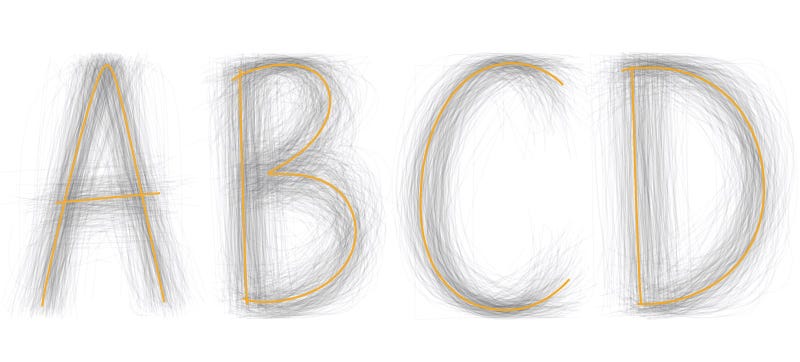
In yet another crushing blow to Comic Sans, pen-maker Bic is currently soliciting handwriting samples from anyone on Earth who wants to participate in its Universal Typeface Experiment. The goal is to create a universal font that will presumably supplant Comic Sans as the go-to typeface for amateur designers making birthday cards, lunch room signage, or business cards for toddlers.